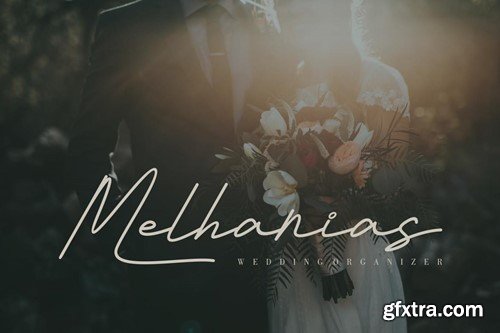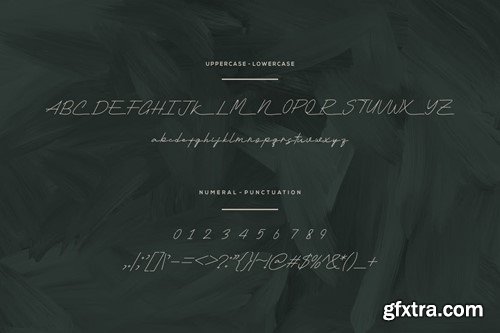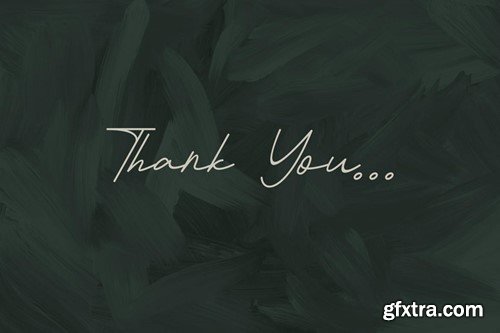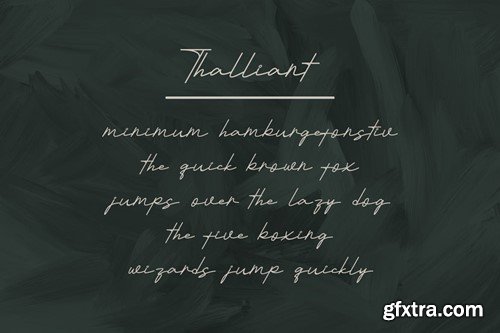
Thalliant Font
Introducing our new product Thalliant Font - Modern Font is a bold and authentic display font. The font is suitable for any branding project like logo, esport, and many more. outstanding in a wide range of contexts. availlable